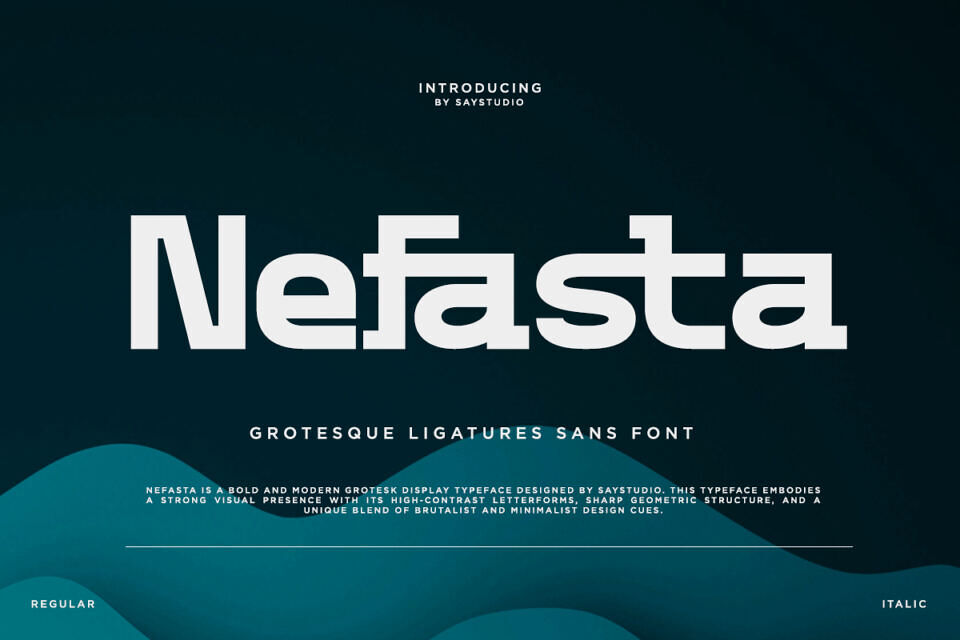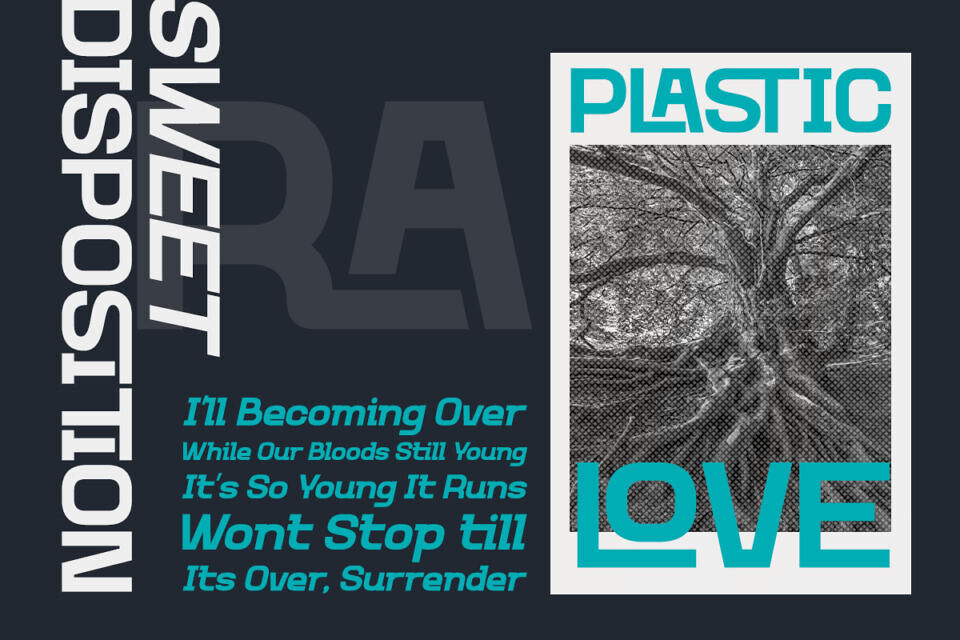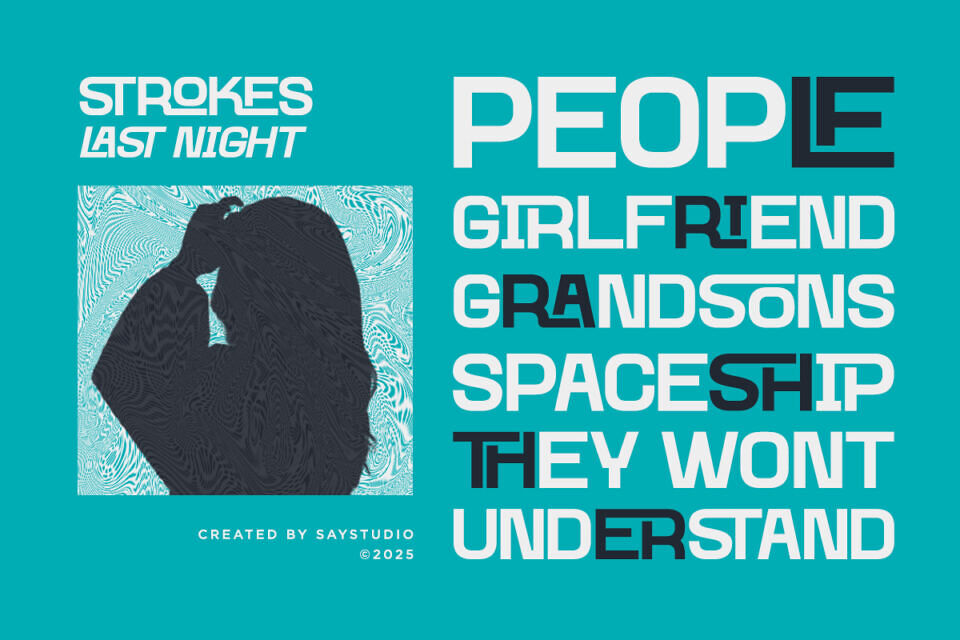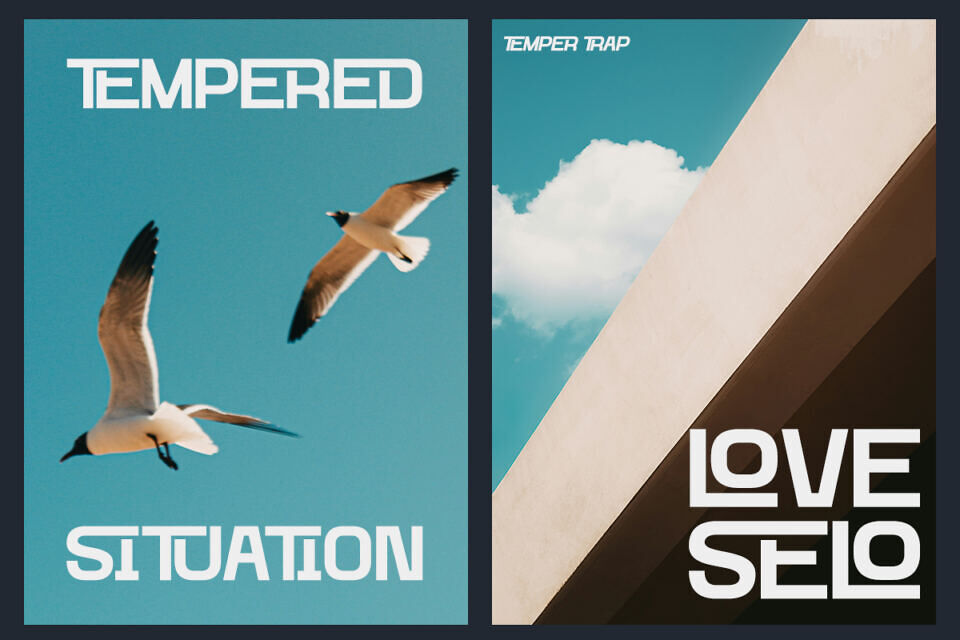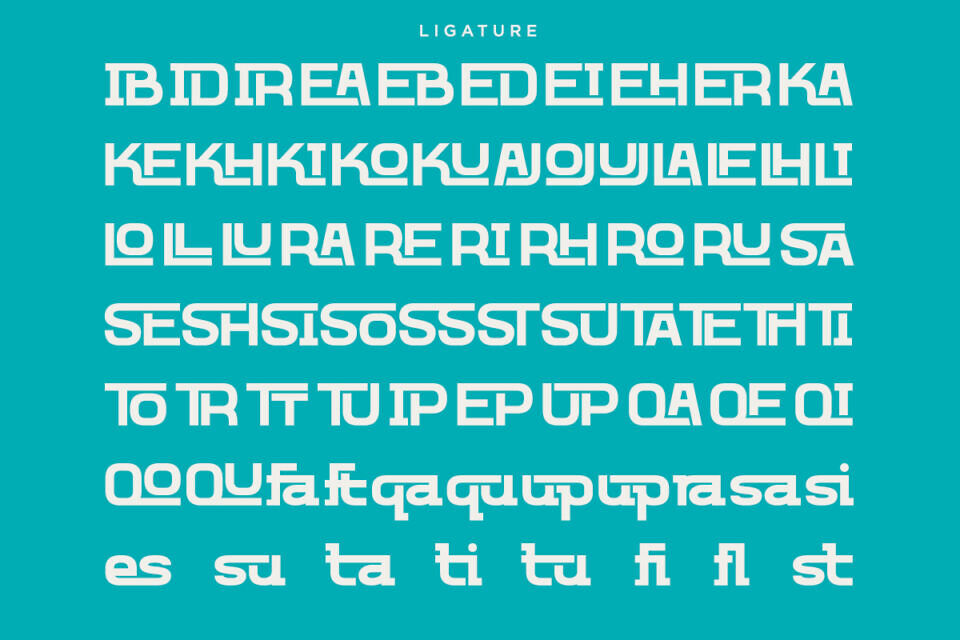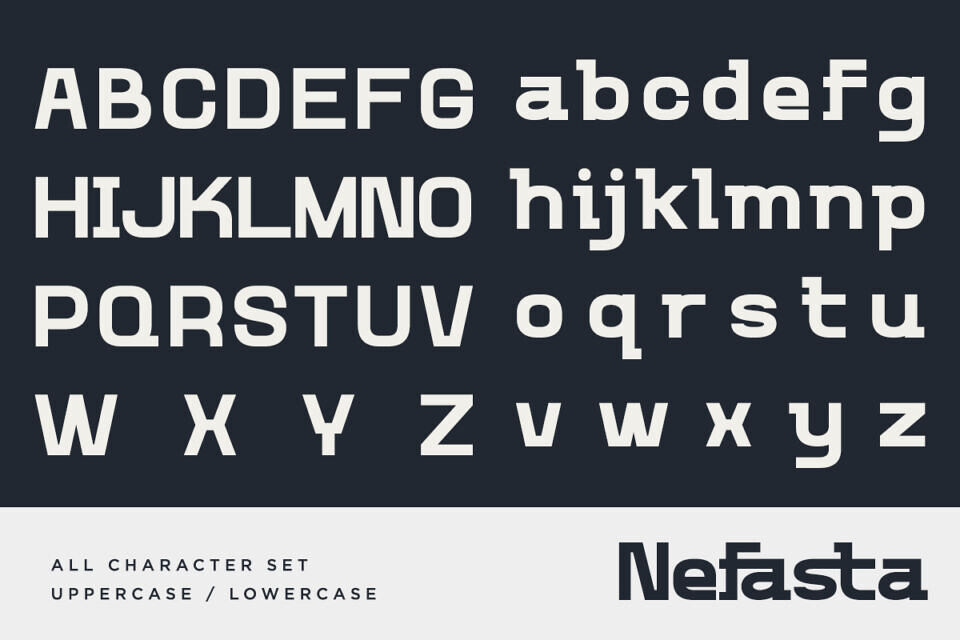
Nefasta Font
Nefasta is a bold and modern grotesque sans serif font with a unique twist—stylish ligatures that create a distinct and sophisticated look. It combines clean, geometric lines with creative letter connections, making it perfect for contemporary branding, headlines, posters, and digital design.
This powerful typeface embodies a strong visual presence, blending a minimalist aesthetic with elements of brutalist design (as stated in the preview). The Nefasta typeface showcases high-contrast letterforms and sharp terminals, making it an exceptional choice for modern branding, high-fashion editorial layouts, cutting-edge website design, and minimalist posters.